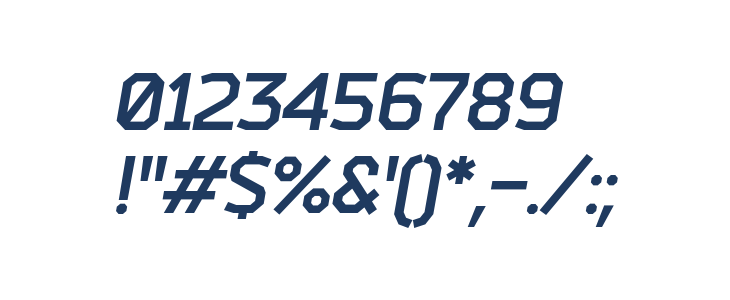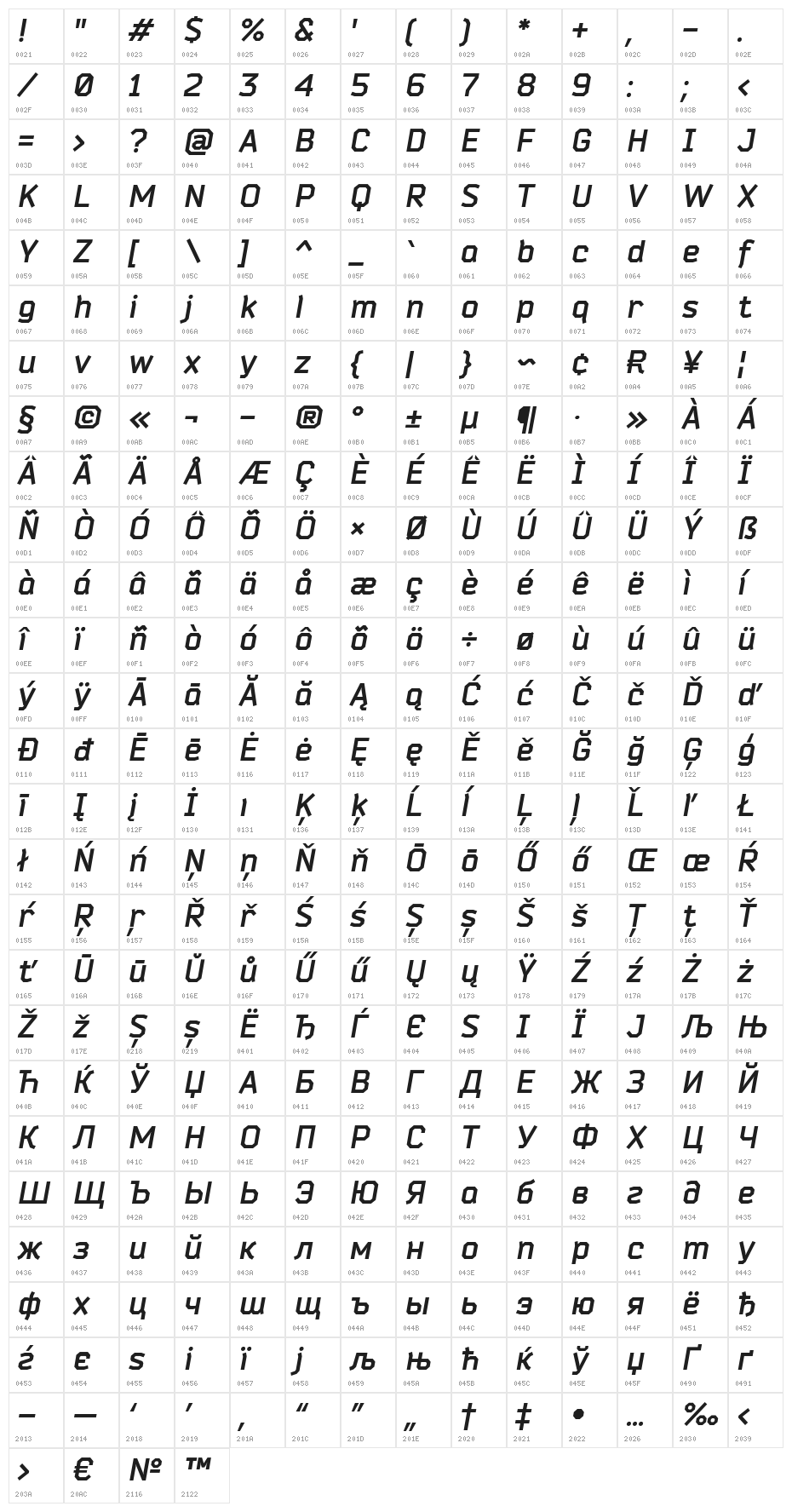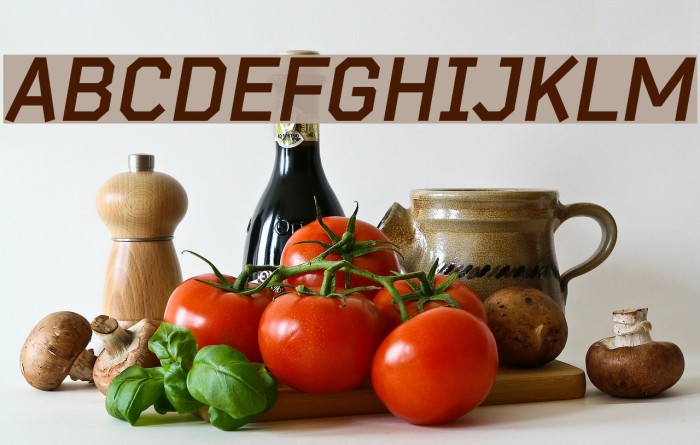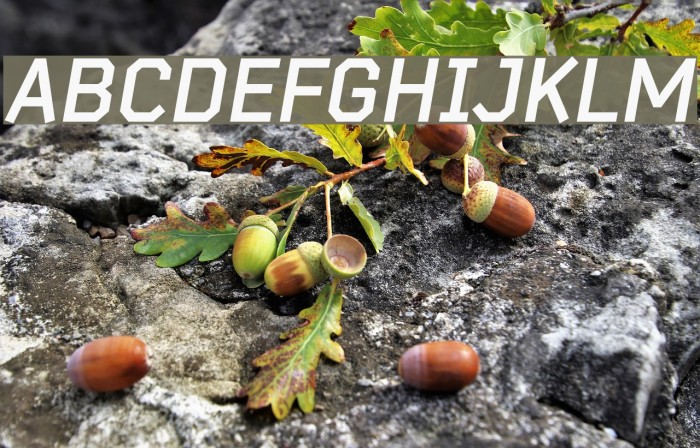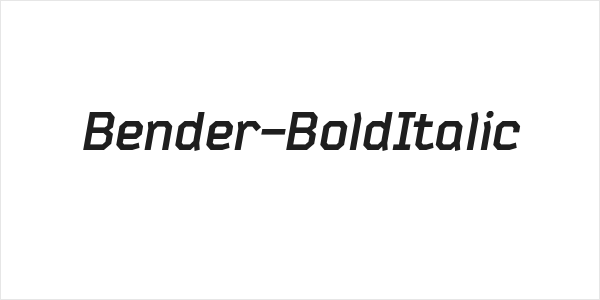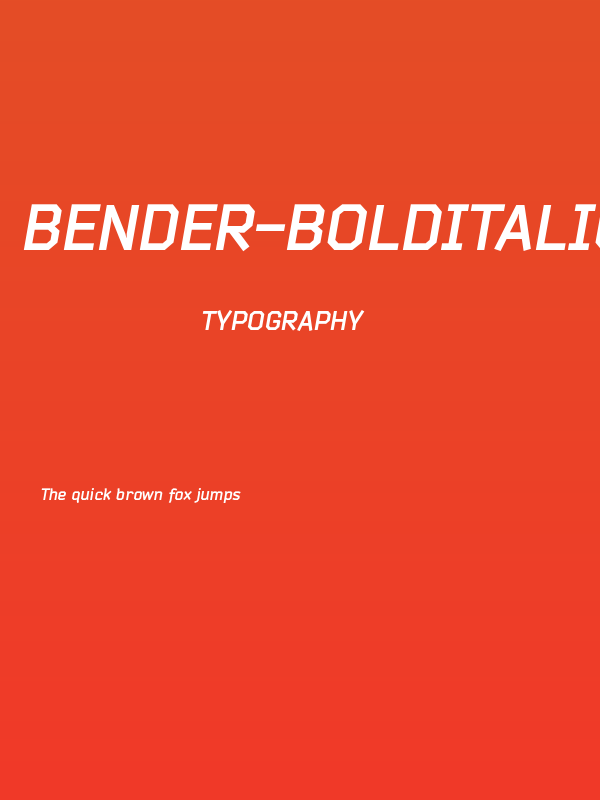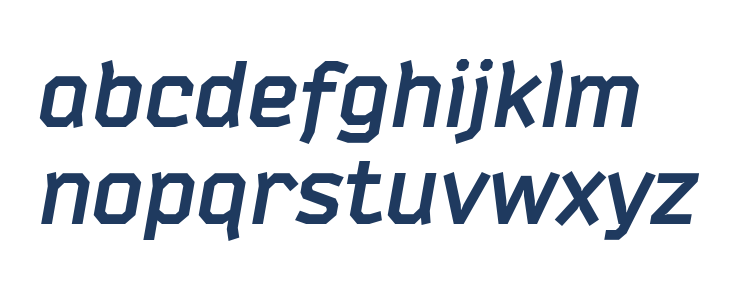
Bender-BoldItalic Font
Bender-BoldItalic Description
This font features a bold and italicized style with a modern, angular design. The characters are slightly slanted, giving a dynamic and forward-moving appearance. The uppercase and lowercase letters maintain a consistent geometric structure, with sharp edges and clean lines. The numerals and special characters follow the same design principles, ensuring uniformity across all glyphs. The font's bold weight and italic slant make it stand out, suitable for attention-grabbing headlines or impactful logos.